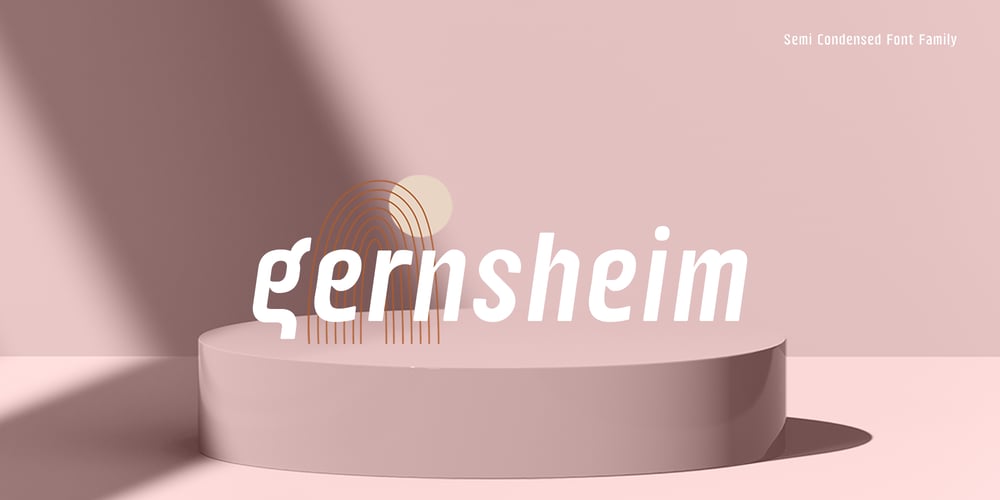
Gernsheim Font Family was designed by Ryul Davidson and published by Brenners Template. Gernsheim contains 18 styles and family package options. Gernsheim is a semi condensed display sans serif font family.This font family has been created for use in headlines and logo display fitted on showcase screen. 9 weights and 18 font styles make up the initial release.To increase the adoption of a wide range of display fonts, the individual glyphs’ handle fluctuations were subtly applied.The compromise of disproportion between straight lines and curves improves glyphs autonomy and relieves tension.And by applying rounded corner effects to each style, it presents the reader with softness and comfort.It is designed so that the rebellious disproportion created by heavy styles transition to flat and classy tenderness as the thin style approaches.Try the uniqueness and excitement of individual styles for yourself